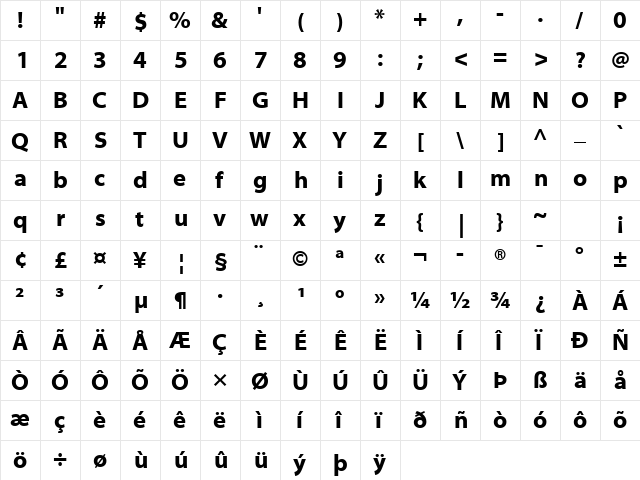
Myriad Web Pro Bold
| Designer | Robert Slimbach and Carol Twombly |
Design Context for Myriad Web Pro Typeface
Myriad Web Pro is a composed and adaptable typeface that performs quietly and consistently across a wide range of design contexts. The heavy weight commands attention and anchors typographic hierarchies.